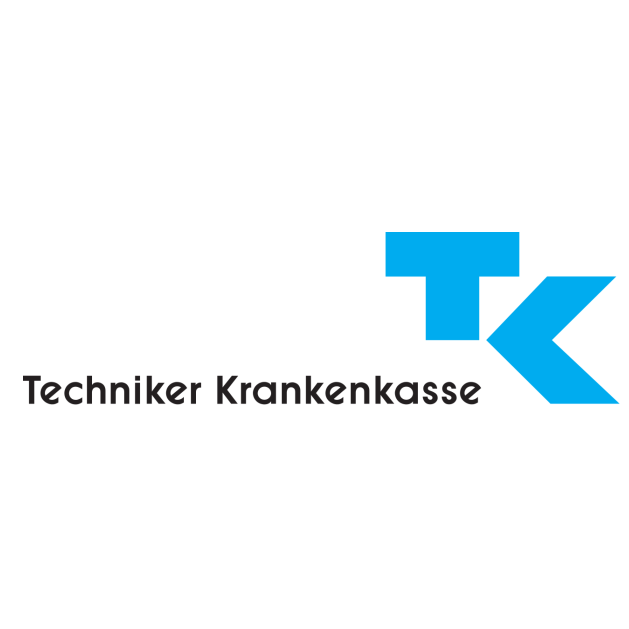
Techniker Krankenkasse Font
FinanceTechniker Krankenkasse (TK) is one of the largest statutory health insurance providers in Germany, offering comprehensive health coverage and services to over 10 million members.
The Techniker Krankenkasse logo features a font similar to ITC Avant Garde Gothic DemiBold, though the tilted letter "e" appears to have been borrowed from ITC Kabel and the letter "c" looks much like Futura Medium.